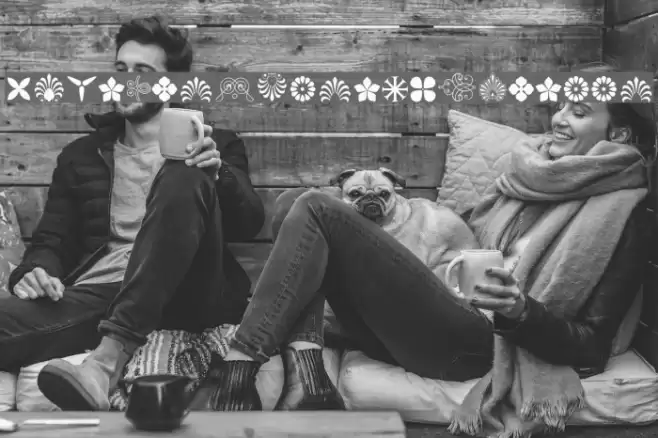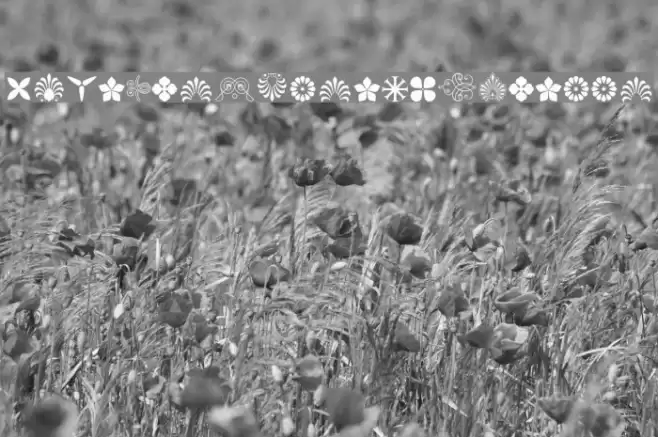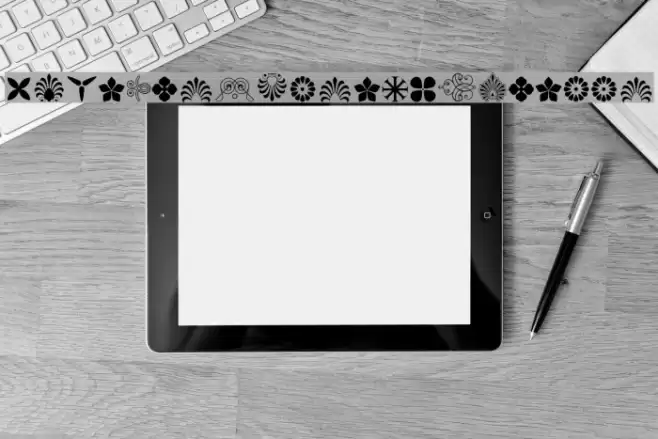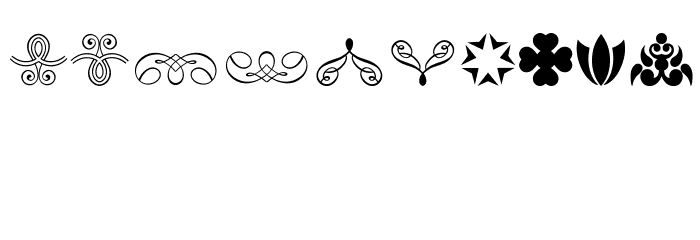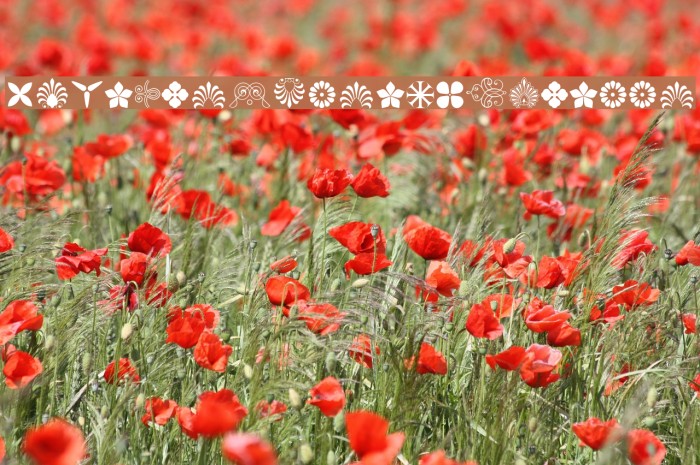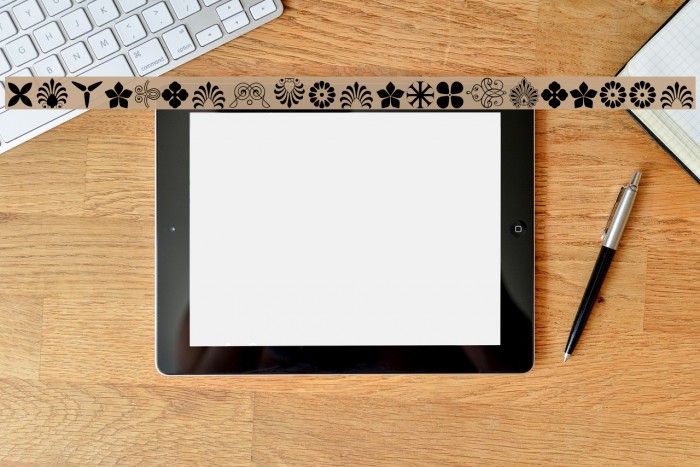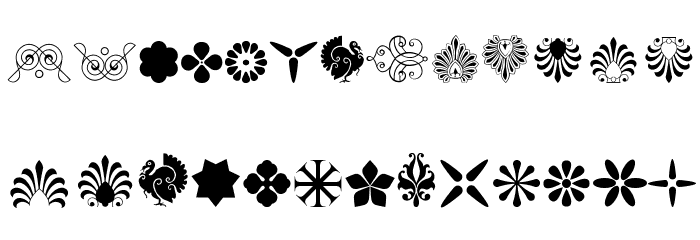
SoftOrnamentsThirteen Font
SoftOrnamentsThirteen Description
A decorative dingbat set featuring a variety of ornamental shapes, including floral motifs, swirls, flourishes, and geometric patterns. The glyphs range from solid to outlined styles, with both symmetrical and asymmetrical designs, suitable for embellishing text or borders.
Ornamental dingbat set with floral and flourish motifs from Dingbats fonts.
- Proposed Projects: Invitations, certificates, decorative borders, scrapbooking, vintage-style designs, greeting cards.
- Overall Style: Decorative, Vintage
- Use Case: Borders, embellishments, dividers, decorative accents.